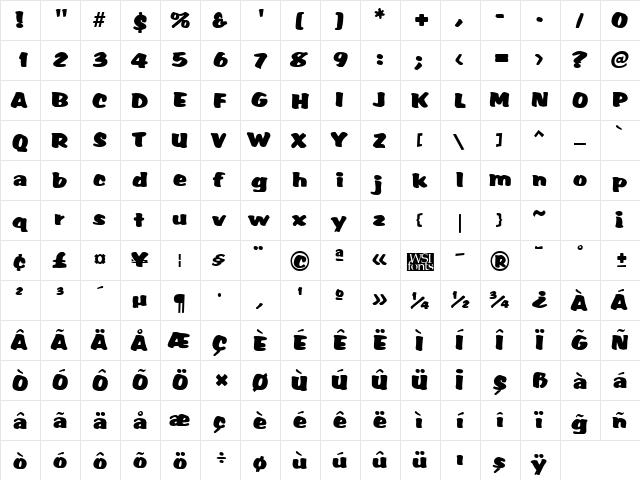
TR Albert Regular
Design Context for TR Albert Typeface
TR Albert is a composed and adaptable typeface that performs quietly and consistently across a wide range of design contexts.